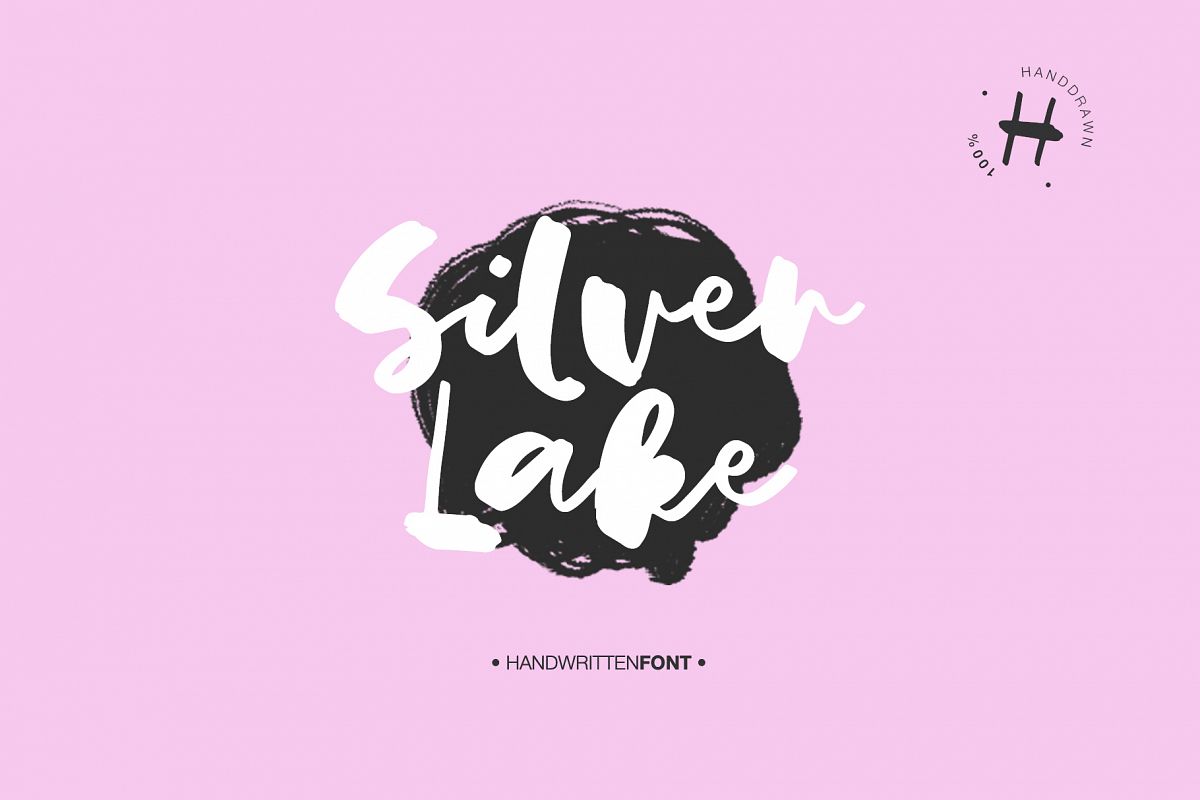
SILVER LAKE handwritten font
Silver Lake will look beautiful on Christmas and holiday invitations, wedding invites and stationery, logos, and more. I love using it for emphasis words and pairing it with serifsTest it out below to see how it could look for your next project